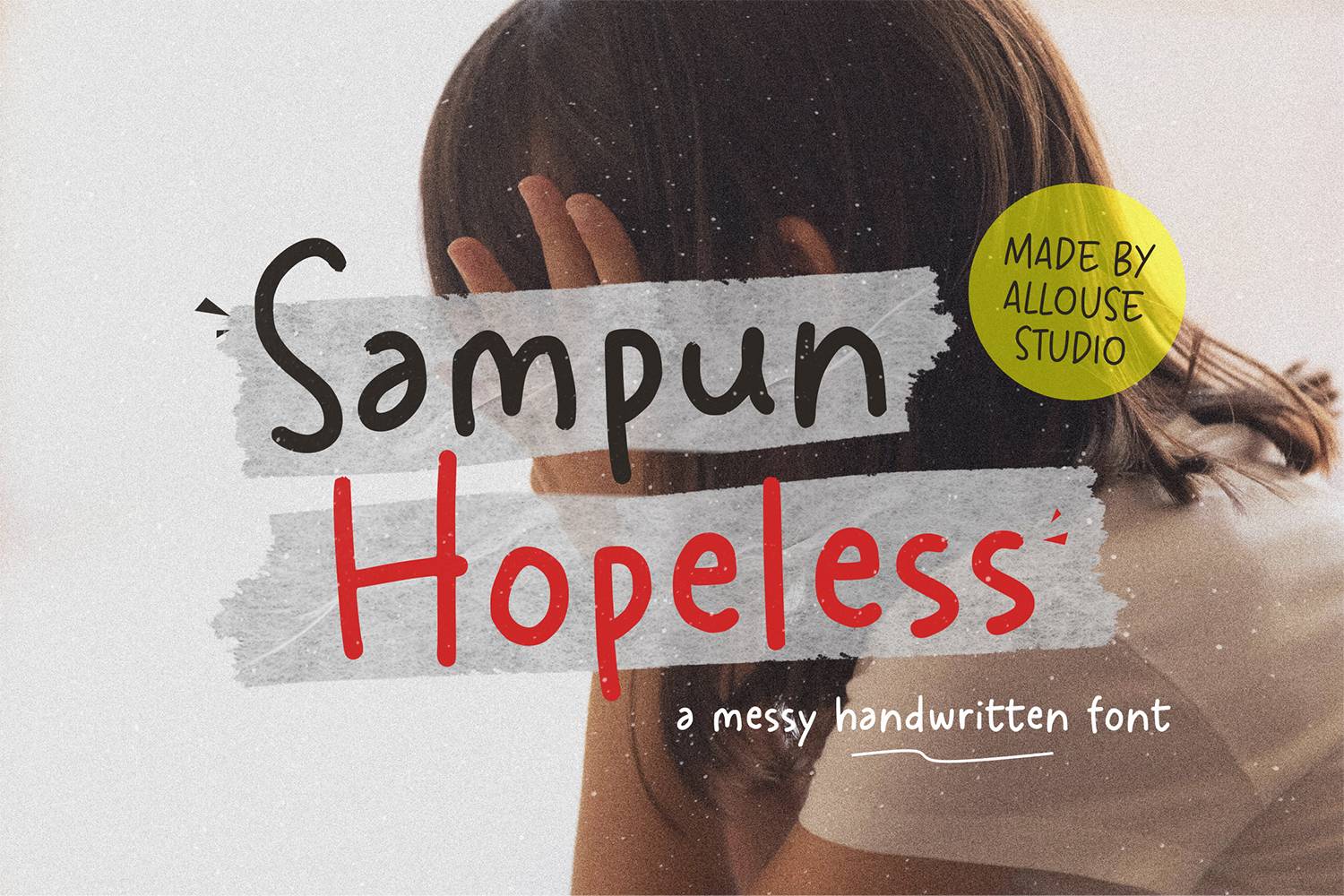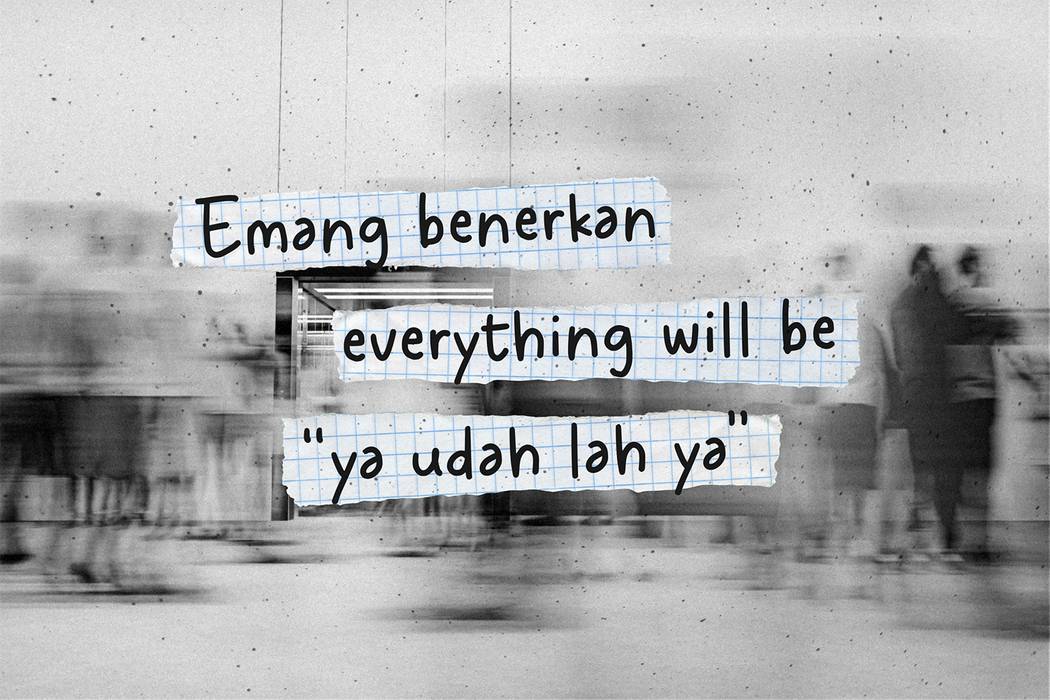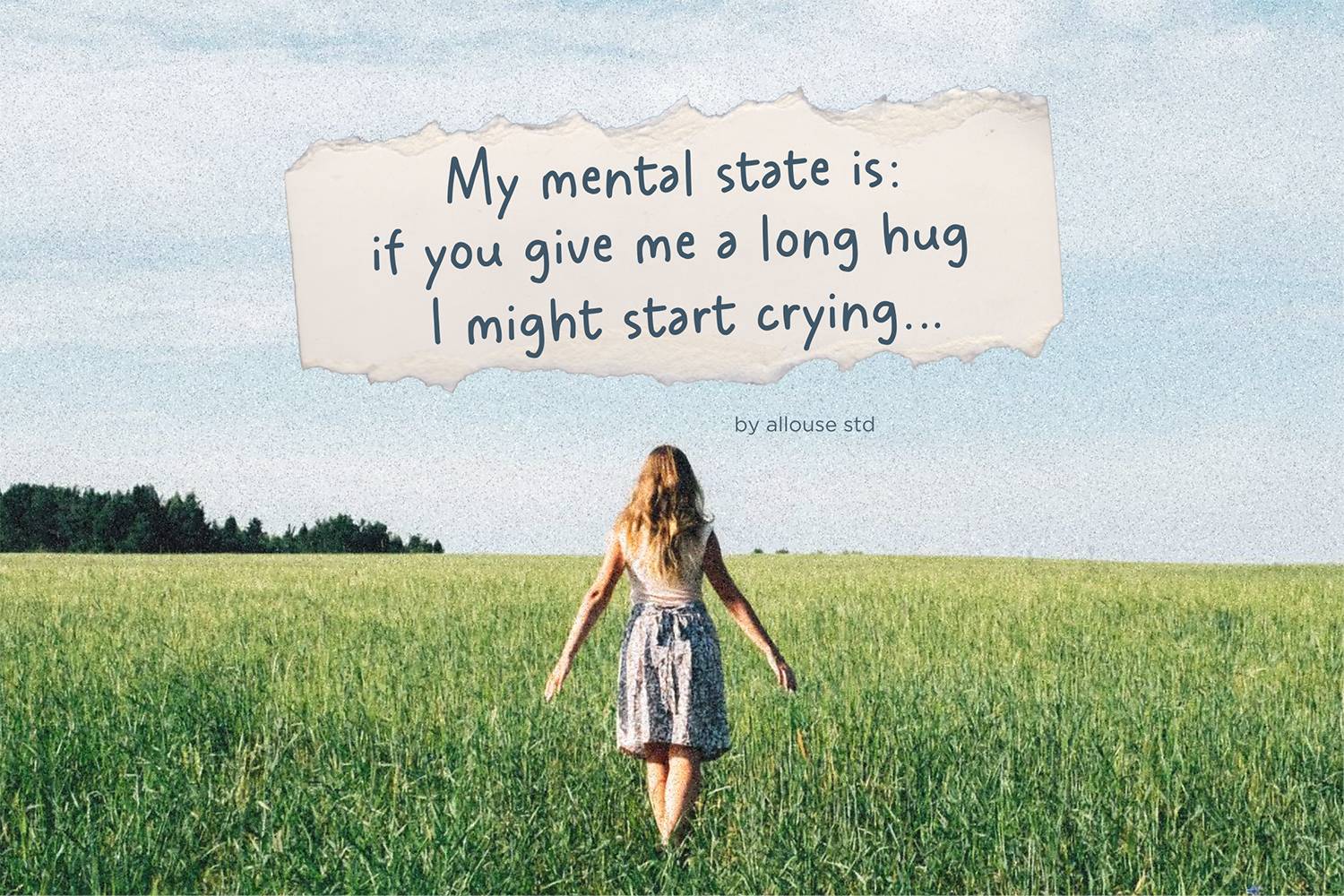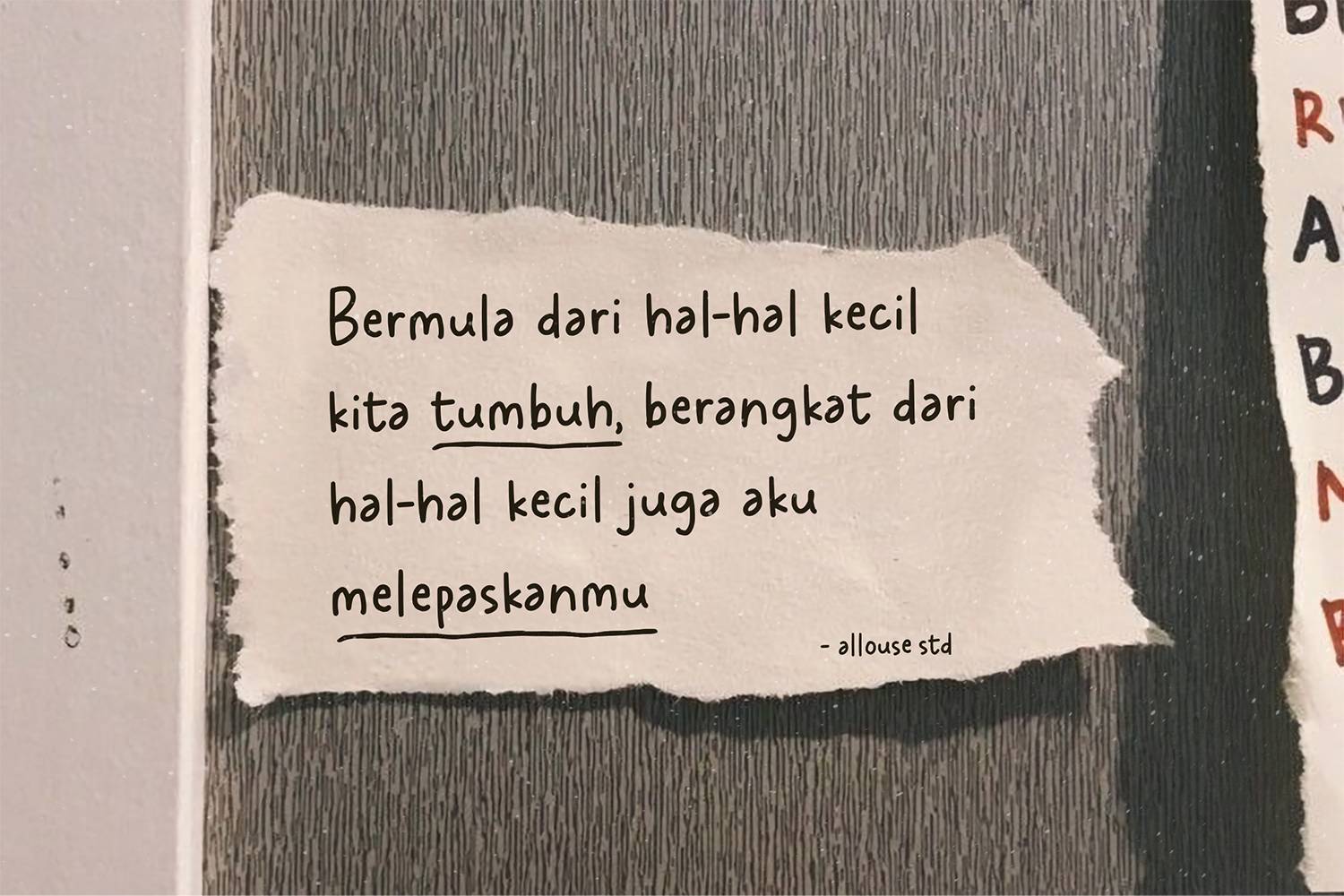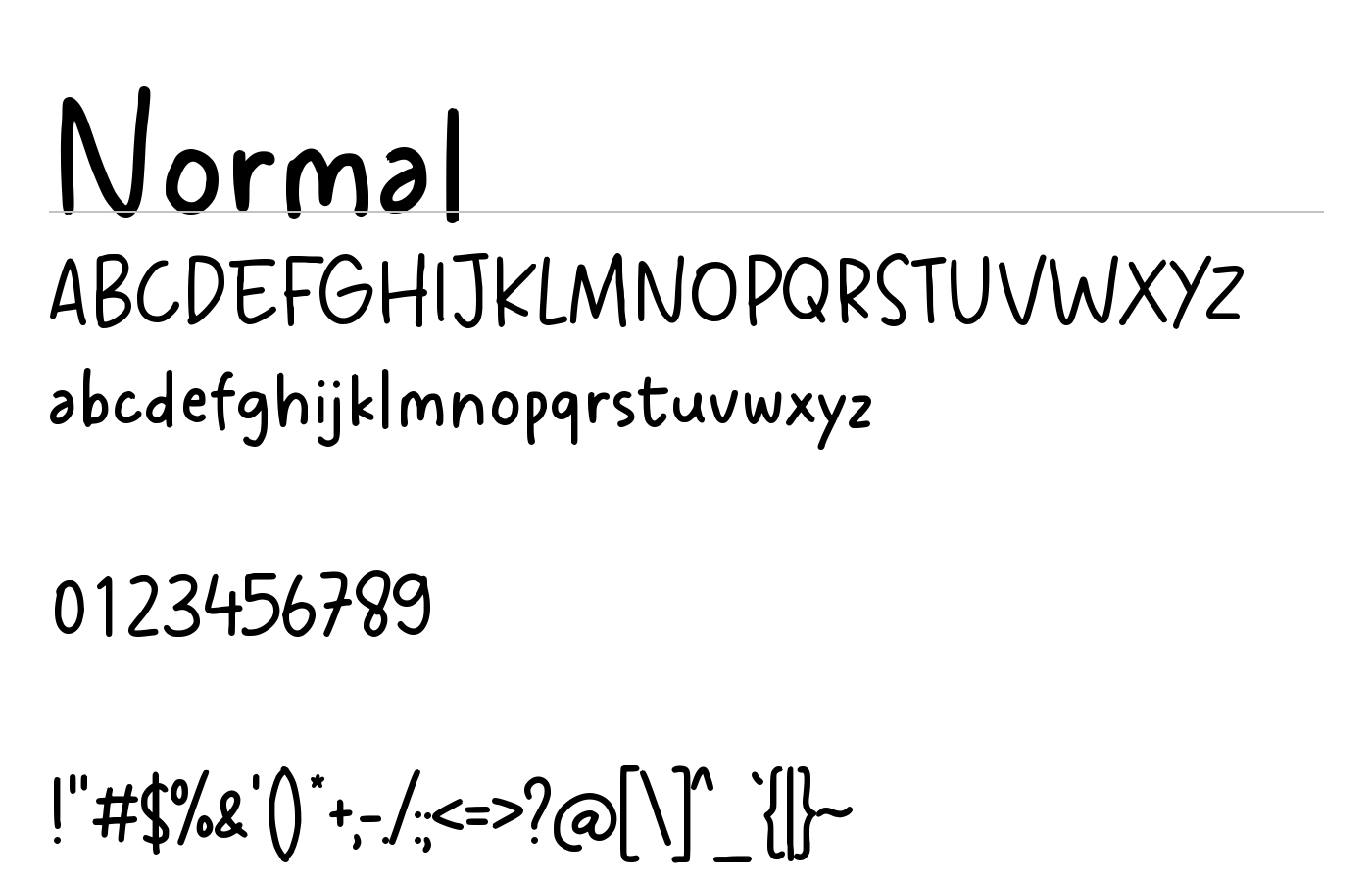
Sampun Hopeless is a casual handwritten sans serif font with a playful and approachable feel, featuring simple, rounded strokes and moderate spacing that enhances readability. Its uneven letterforms and slightly quirky shapes give it a friendly, informal personality well-suited for personal projects, children’s materials, or any design seeking a warm, authentic touch. This font works best for headlines, branding, or creative content where a relaxed and genuine tone is desired.
Sampun Hopeless Font
About Sampun Hopeless Font